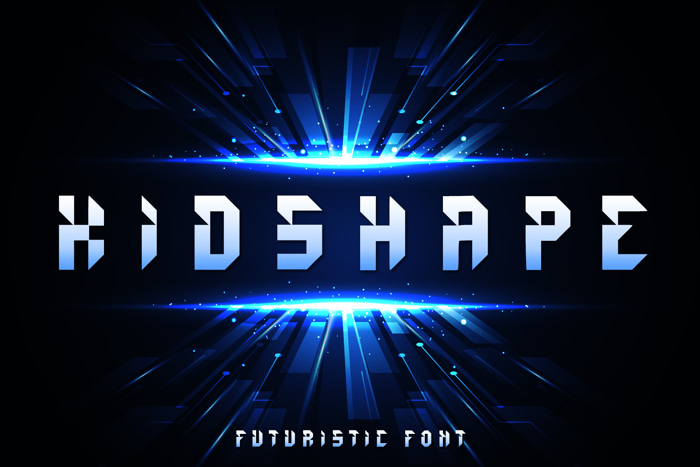
Kids Shape Font
Kidshape A stylish futuristic font. Perfect for various design project, both printing and screen display, and is most suitable for modern design, technology, sci-fi, futuristic style, flat design and web design.